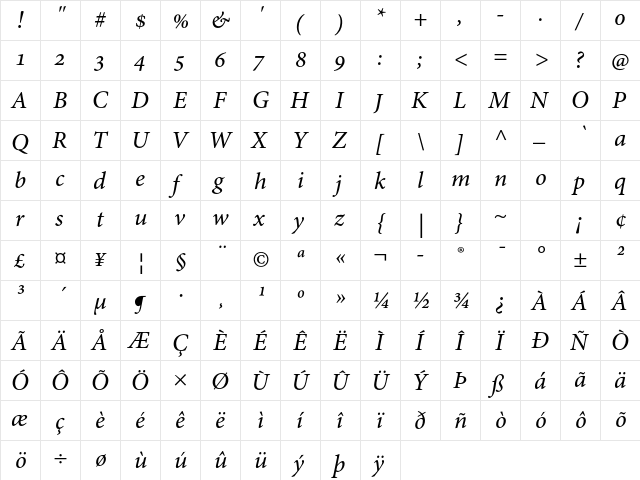
Adobe Hebrew Italic
| Foundry | Tiro Typeworks for Adobe Systems Incorporated. |
| Designer | John Hudson (Hebrew) and Robert Slimbach (Latin) |
Design Context for Adobe Hebrew Typeface
Adobe Hebrew is a composed and adaptable typeface that performs quietly and consistently across a wide range of design contexts. The dynamic lean of this cut emphasises speed and emphasis in any layout.